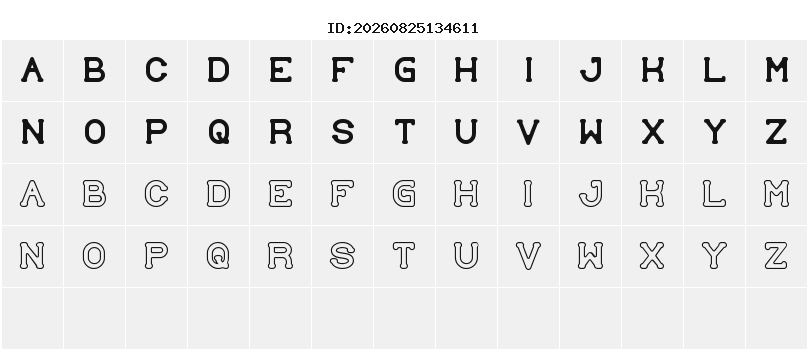
SUBMIT TO faith Preview
• Font Name: SUBMIT TO faith
• Full Font Name: SUBMIT TO faith
About SUBMIT TO faith.ttf
SUBMIT TO faith.ttf is a modern, elegant sans-serif font designed for ultimate readability and visual harmony. Perfect for branding, headlines, web design, and print materials.